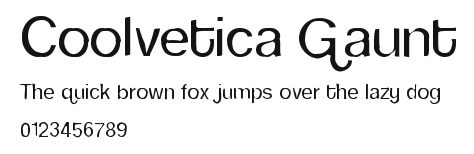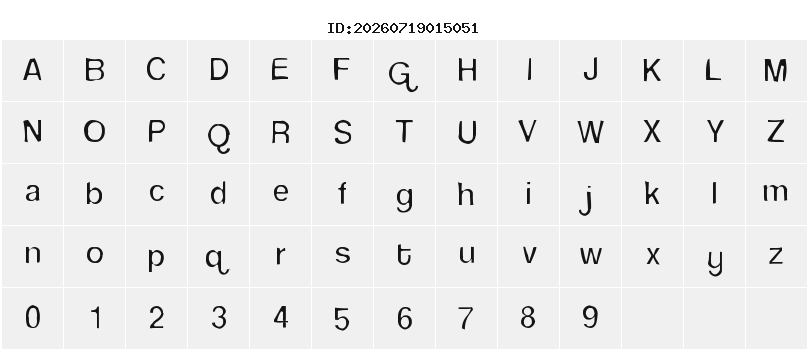
• Font Name: Coolvetica Gaunt
• Full Font Name: Coolvetica Gaunt
• Designer: Ray Larabie
About Coolvetica Gaunt.ttf
Coolvetica Gaunt.ttf is a modern, elegant sans-serif font designed for ultimate readability and visual harmony. Perfect for branding, headlines, web design, and print materials.